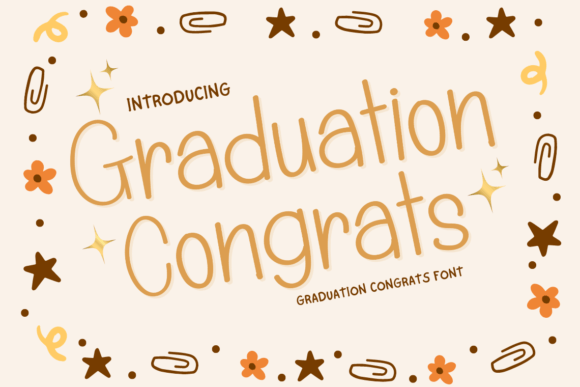
Graduation Congrats Font: The Perfect Handwritten Typeface for Celebratory Designs
Congratulations to all the graduates out there! As we celebrate the achievements of students, we also acknowledge the importance of visually appealing designs that make these moments even more special. This is where the Graduation Congrats Font comes into play – a beautiful, handwritten typeface designed specifically for education and school-related graphics. In this article, we’ll explore the features, versatility, and uses of the Graduation Congrats Font, and how it can elevate your designs to the next level.
What is Graduation Congrats Font?
The Graduation Congrats Font is a unique, handwritten typeface created with the intention of providing a stylish and elegant way to convey messages, particularly in educational settings. Its design is characterized by flowing lines, charming letterforms, and a friendly tone that instantly connects with the audience. This font is not just limited to graduation ceremonies; it’s versatile enough to be used for various occasions such as holidays, birthdays, and other celebratory events.
Key Features of Graduation Congrats Font
- Handwritten Style: The font boasts a natural, handwritten look that adds a personal touch to any design.
- Versatile Alphabet: The alphabet is designed to be versatile, making it suitable for a wide range of applications.
- Easy to Read: Despite its decorative nature, the font remains clear and easy to read, ensuring your message is conveyed effectively.
- Highly Customizable: The font can be adjusted in size, color, and style to fit your design needs.
Versatility of Graduation Congrats Font
One of the standout features of the Graduation Congrats Font is its incredible versatility. It’s not just limited to graduation-related designs; this font can be used for a plethora of projects, including:
Various Use Cases
- Invitations: Create stunning invitations for parties, graduation ceremonies, and other events.
- Posters: Design eye-catching posters for school events, exhibitions, and announcements.
- Greeting Cards: Add a personal touch to greeting cards for special occasions like birthdays, holidays, and congratulations.
- Logo Design: Use the font for creating logos for educational institutions, event planners, or any business that requires a friendly, approachable look.
- Art Projects: Incorporate the font into your art projects for a unique and creative flair.
- Advertisements: Make your advertisements stand out with a font that captures attention and conveys warmth.
- Headers and Titles: Use the Graduation Congrats Font for headers and titles in your projects to add a touch of elegance and sophistication.
Benefits of Using Graduation Congrats Font
Using the Graduation Congrats Font in your designs comes with numerous benefits:
Why Choose Graduation Congrats Font?
- Uniqueness: The font’s distinct style sets it apart from more common typefaces, making your designs instantly recognizable.
- Emotional Connection: The friendly and approachable nature of the font helps create an emotional connection with your audience.
How to Use Graduation Congrats Font Effectively
To get the most out of the Graduation Congrats Font, consider the following tips:
Tips for Effective Use
- Pair with Other Fonts: Combine Graduation Congrats Font with complementary fonts for contrast and visual interest.
- Adjust Size and Color: Experiment with different sizes and colors to emphasize certain parts of your design.
- Maintain Readability: Ensure that your text remains readable by testing it in various sizes and on different backgrounds.
- Be Creative: Don’t be afraid to experiment with the font’s flexibility to create unique design elements.
The Graduation Congrats Font is a powerful tool for designers, offering a unique blend of charm, versatility, and readability. Whether you’re working on graduation-related projects, or designing materials for other celebratory occasions, this font is sure to enhance your creations. Its wide range of applications, coupled with its aesthetic appeal, makes it an excellent addition to any designer’s toolkit. So, next time you’re looking to add a personal touch to your designs, consider the Graduation Congrats Font – a typeface that celebrates achievements with style and elegance.
Final Thoughts
In the world of design, typography plays a crucial role in conveying messages and evoking emotions. The Graduation Congrats Font stands out as a beautiful, handwritten typeface that not only adds visual appeal to your designs but also connects with your audience on a personal level. Its suitability for various projects, from educational to celebratory, makes it a valuable asset for designers and non-designers alike. Embrace the Graduation Congrats Font in your next project and experience the difference it can make.